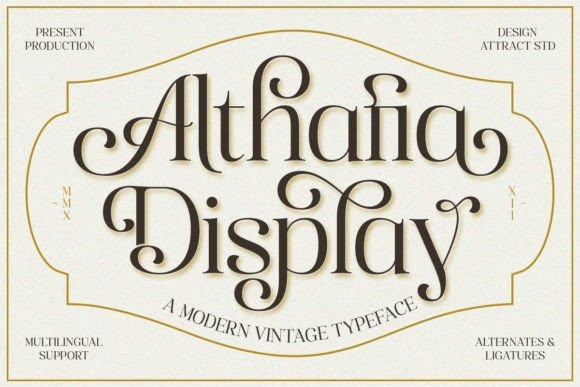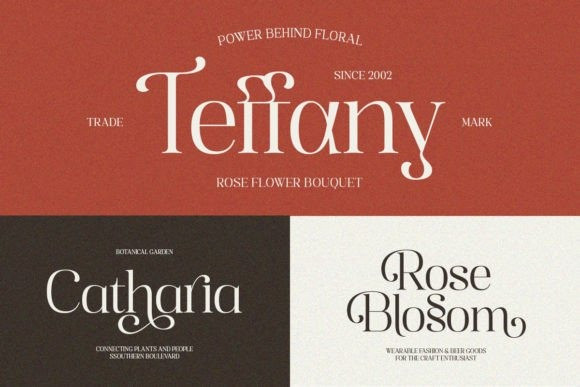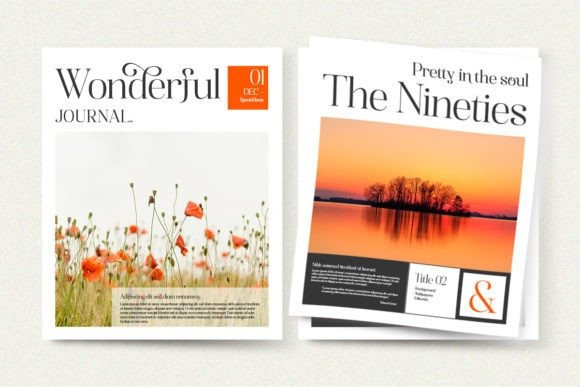
Althafia Display Font
Althafia Display is a fancy, aesthetically pleasing display font. Sophisticated, charming, and modern, this typeface is perfect for creating elegant, chic designs. This font is PUA encoded which means you can access all the glyphs and ligatures with ease!